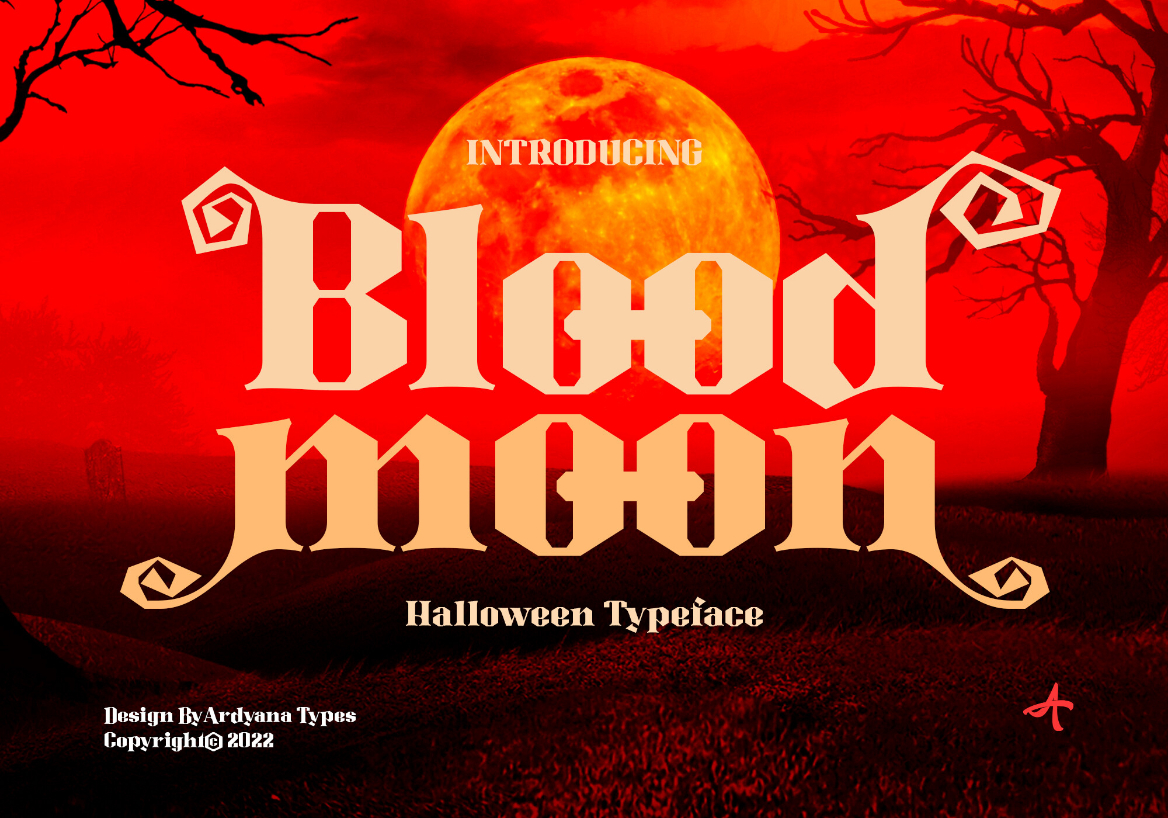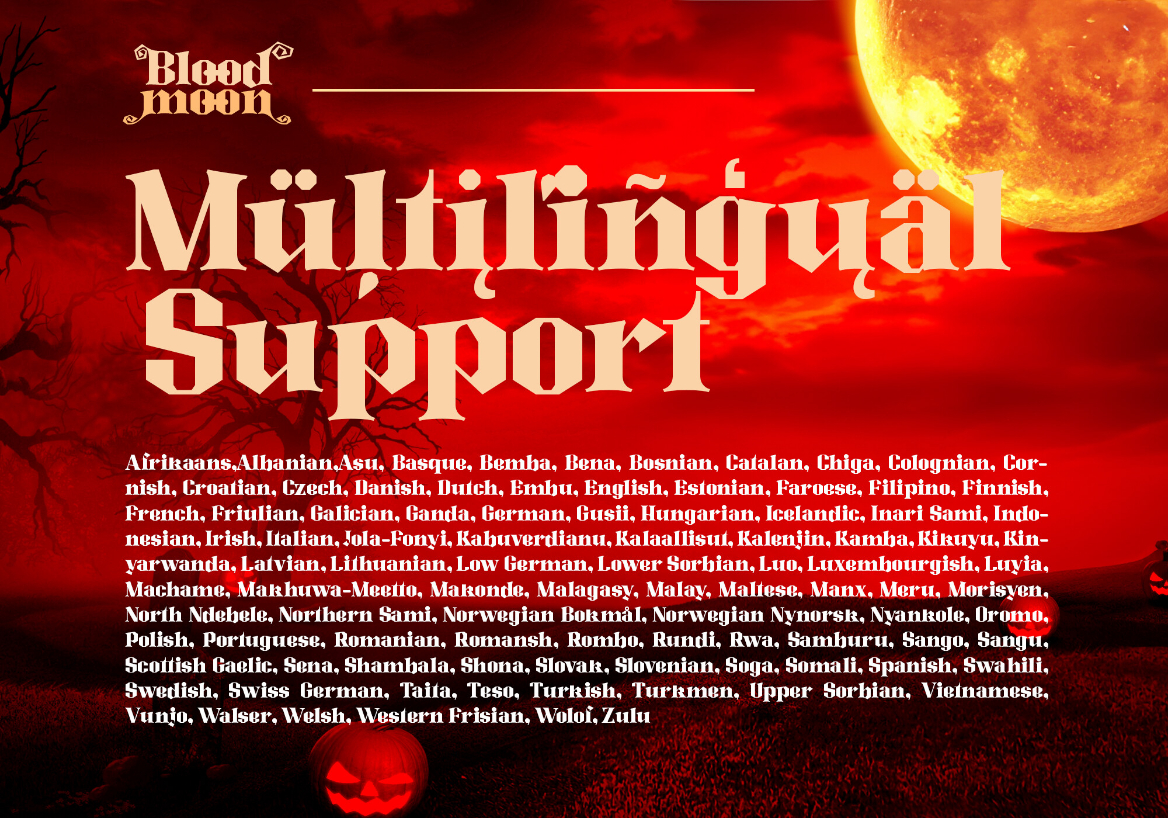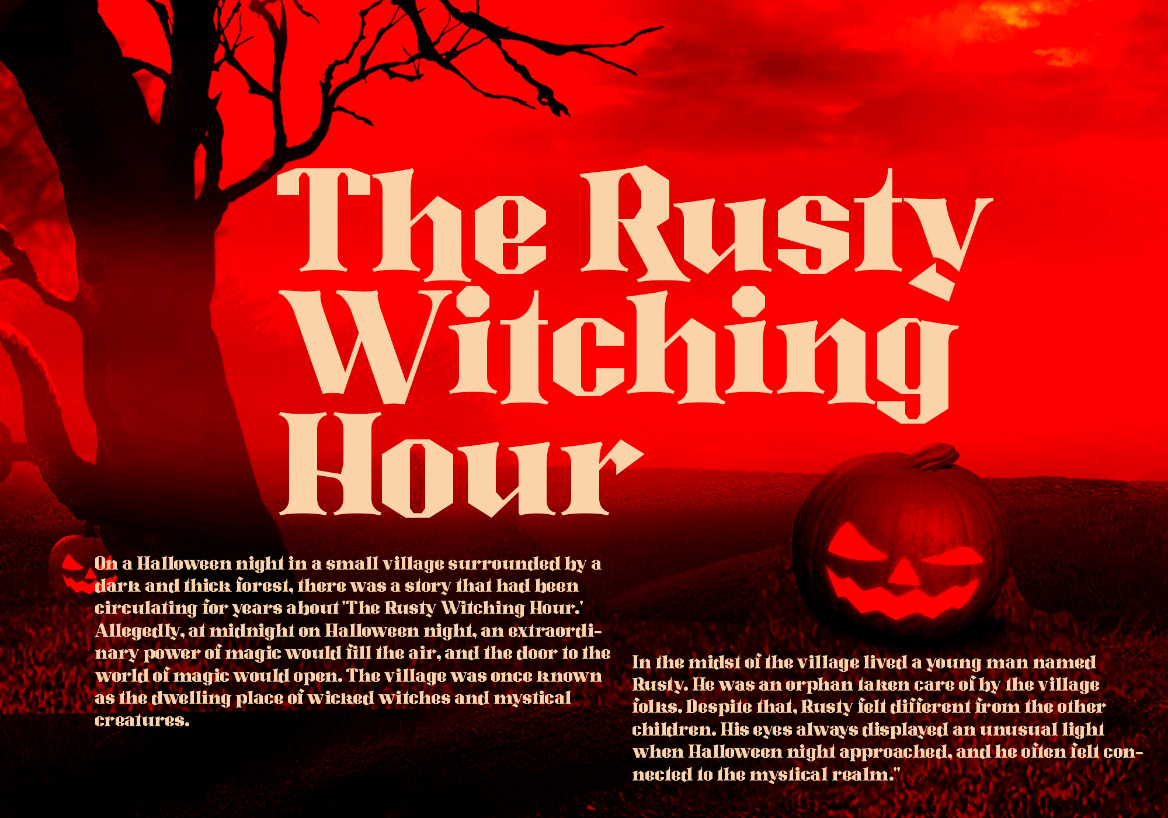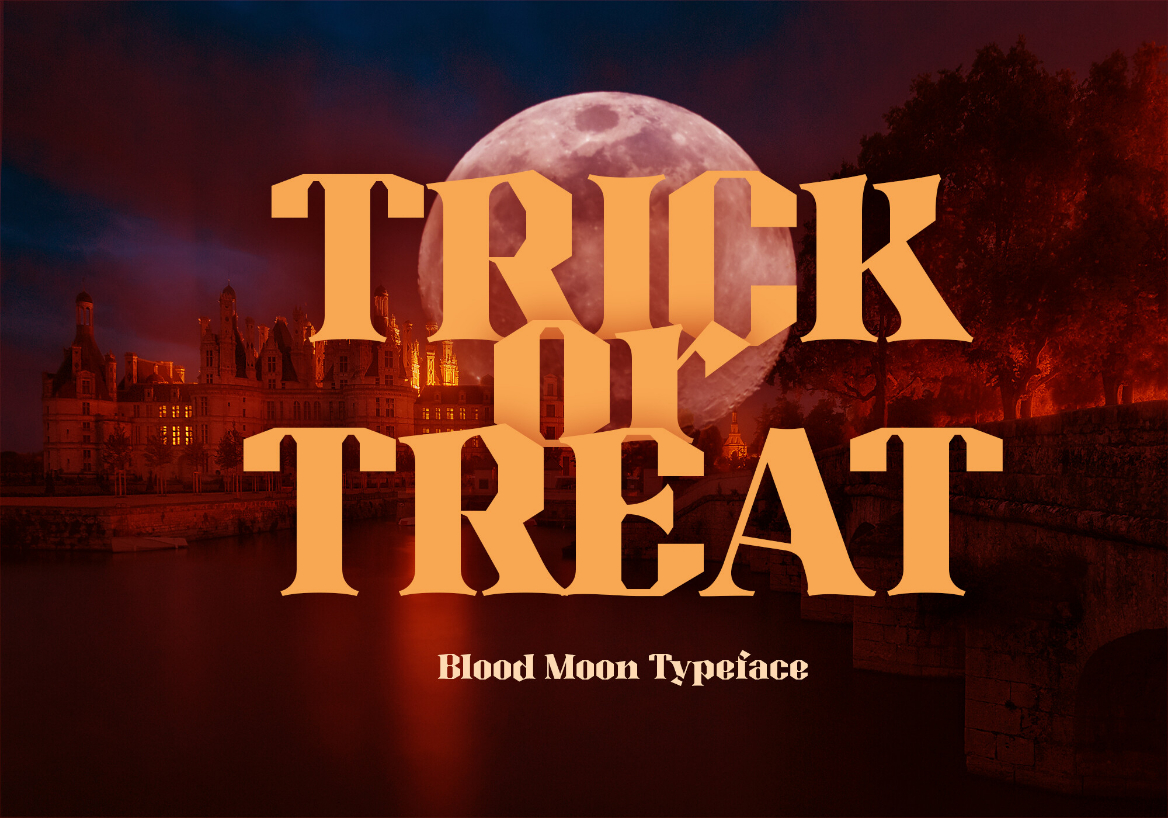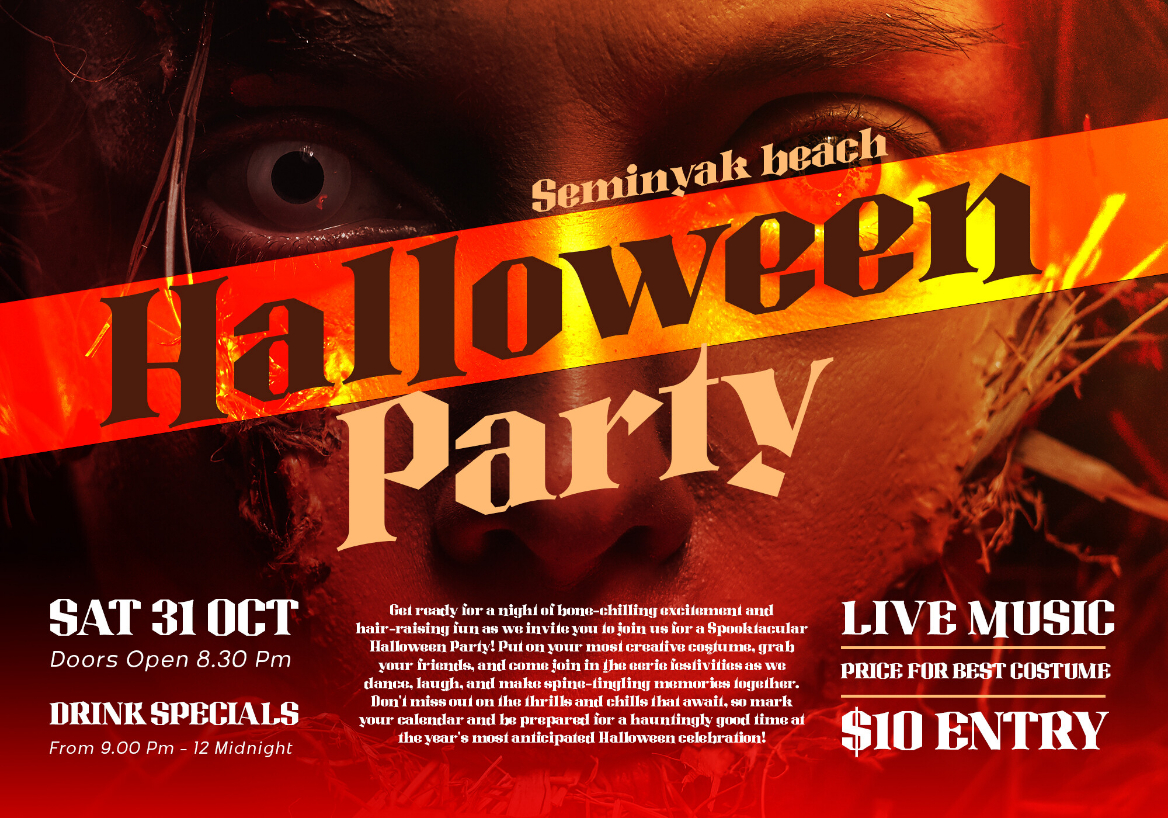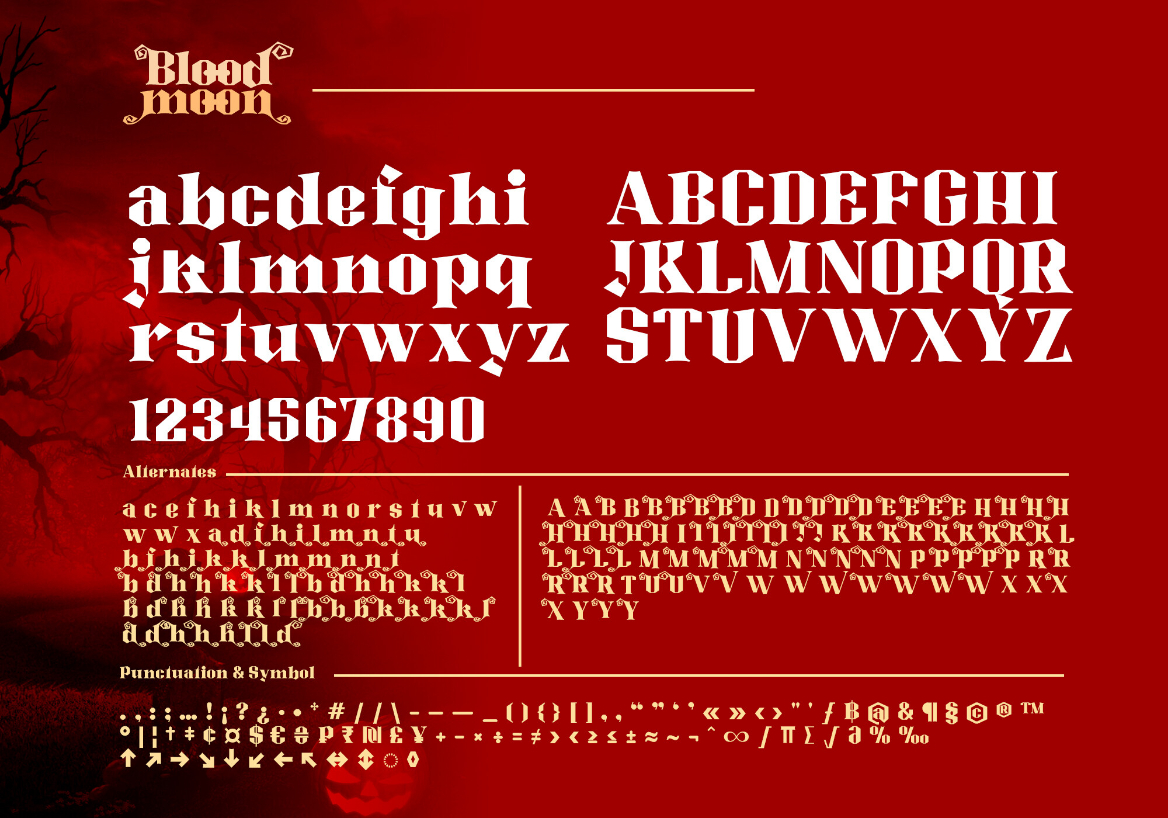
Blood Moon Font
About Blood Moon Font
Blood Moon typeface is a typographic creation that combines unique and captivating elements. Crafted specifically to celebrate the Halloween ambiance, this font carries the aura of a mysterious and thrilling Blood Moon – typeface” With an elegant serif design, the font seamlessly blends sophistication and tension, making it a perfect choice for various design projects.